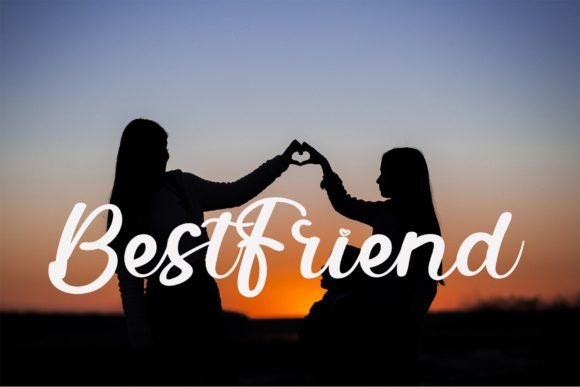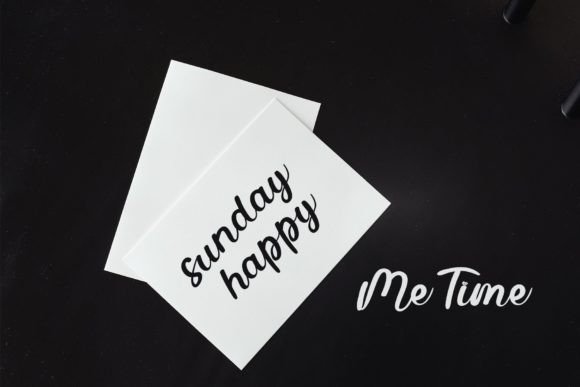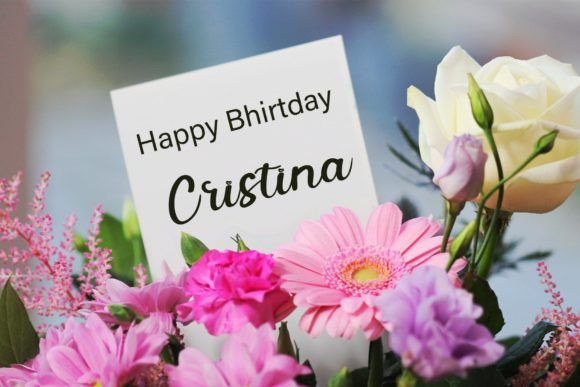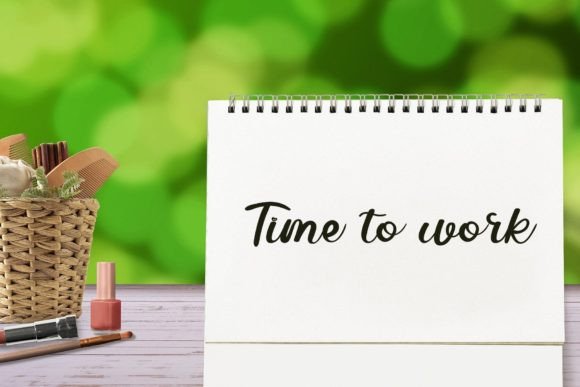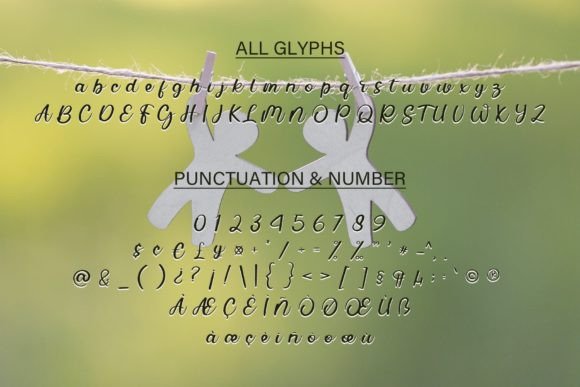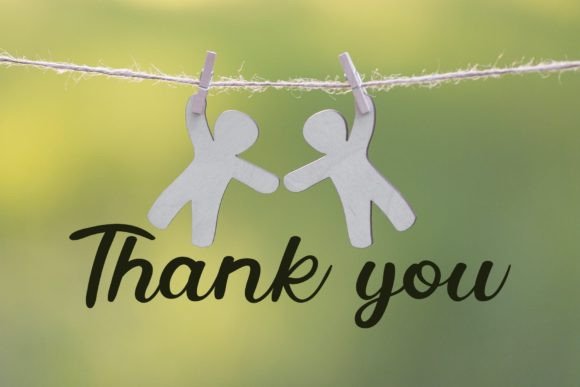
Bestie Font
Bestie is a delightful and cheerful handwritten font that brings a sense of fun and friendliness to a wide range of design projects. Its versatile and playful nature makes it a perfect choice for any creative endeavor, allowing you to transform your ideas into standout designs. Bestie’s unique charm serves as inspiration, infusing a sense of joy into your creations.
The font’s friendly and approachable aesthetic makes it suitable for a variety of design applications. Whether you’re working on branding, social media graphics, posters, T-shirts, invitations, or any other project, Bestie adds a lighthearted touch that captivates attention and creates a positive impression.
Bestie’s handwritten style contributes to the creation of personalized and engaging designs. Its playful characters and flowing strokes make it easy to infuse a sense of warmth and character into your messages, making them more relatable and inviting.
In the realm of branding, Bestie stands out as a font that can convey a sense of approachability and creativity. Whether you’re designing a logo, business cards, or promotional materials, Bestie’s fun and friendly demeanor adds a distinctive flair to your brand identity.
Bestie’s versatility extends to various design contexts, making it an excellent choice for turning ordinary ideas into extraordinary designs. Its adaptability allows it to complement different visual styles and themes, giving you the flexibility to explore and experiment with your creative concepts.
In summary, Bestie is not just a font; it’s a design companion that brings joy and friendliness to your projects. Whether you’re creating branding elements, social media graphics, or any other design requiring a playful touch, Bestie’s fun and friendly handwritten style help your ideas stand out and leave a lasting impression.